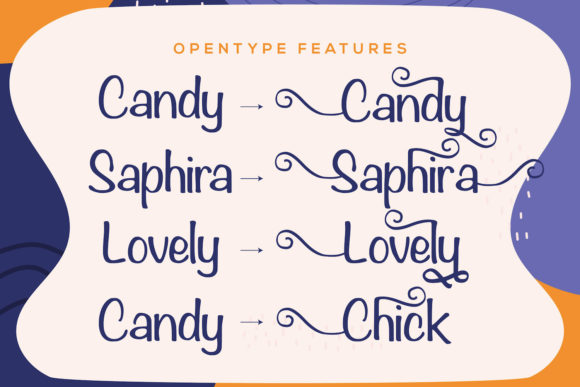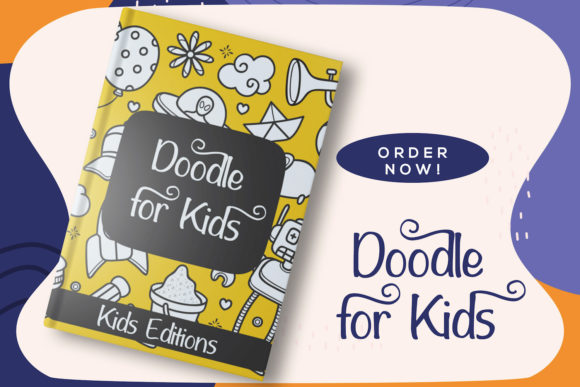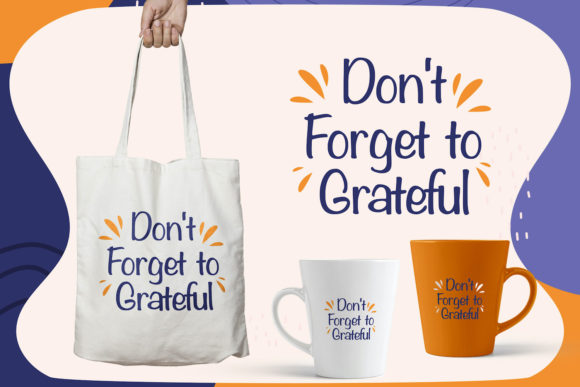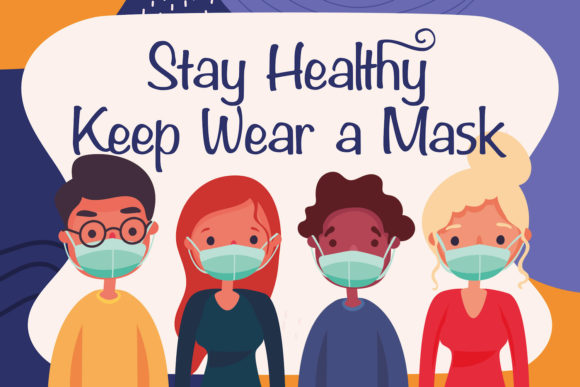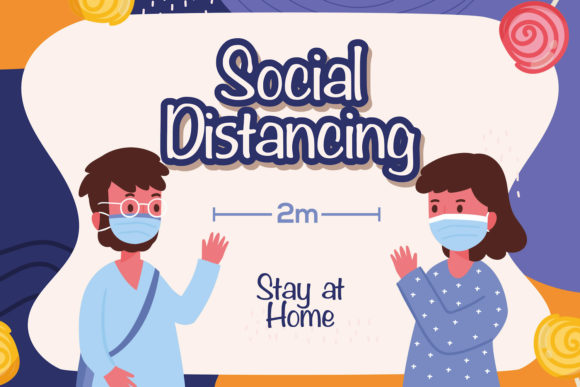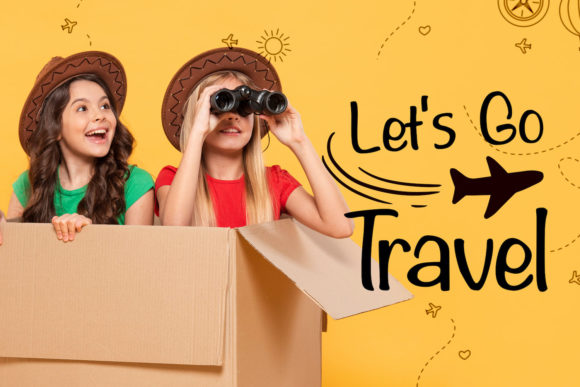
The Sweetest Font You’ll Ever Use: A Deep Dive into Candy Yefumy
I’ll never forget the time I was working on a project for a children’s birthday party invitation. I had the design concept all sorted out, but I was stuck on finding the perfect font. The design just didn’t feel festive enough, and I knew I needed something special. That’s when I stumbled upon Candy Yefumy, a cute and playful display font that instantly brought my design to life. If you’re a designer, crafter, or creative hobbyist looking for a font that adds a joyful touch to your work, you’re in the right place!
An Honest Review of Candy Yefumy
What I Love About Candy Yefumy
- ✨ Playful and Whimsical: Candy Yefumy has a unique, hand-crafted feel that’s perfect for designs that need a bit of personality.
- ✅ Highly Versatile: This font can be used for a wide range of projects, from party invitations to branding and packaging.
- 💫 Easy to Read: Despite its playful nature, Candy Yefumy is surprisingly easy to read, even at smaller sizes.
- 🎉 Perfect for Kids’ Designs: The font’s fun and bubbly vibe makes it an excellent choice for designs aimed at children or families.
While Candy Yefumy is an amazing font, there are a few things to keep in mind:
- 🤔 Limited Use in Formal Designs: Due to its playful nature, Candy Yefumy might not be the best fit for formal or professional designs.
- ⚠️ May Not Work Well in Long Texts: This font is best used for headlines, titles, or short paragraphs. It may not be the most suitable choice for longer texts.
The Backstory Behind Candy Yefumy
Candy Yefumy was designed by a talented font creator who wanted to bring a touch of joy and whimsy to the world of typography. Inspired by the sweetness of candy and the playfulness of childhood, Candy Yefumy was born. With its unique, hand-crafted feel and highly versatile design, it’s no wonder this font has become a favorite among designers and crafters.
| Font Name | Candy Yefumy Font |
| Author | StringLabs |
Q: What type of designs is Candy Yefumy best suited for?
A: Candy Yefumy is perfect for designs that need a playful and whimsical touch, such as party invitations, kids’ designs, branding, and packaging.